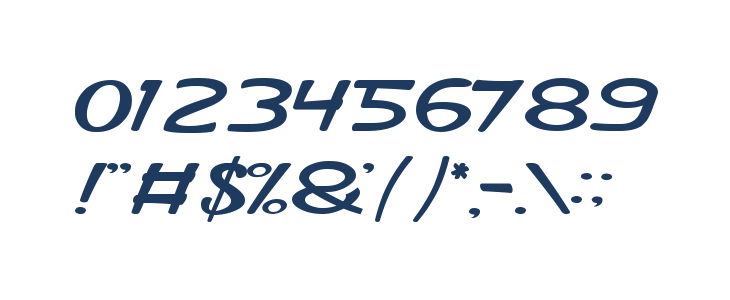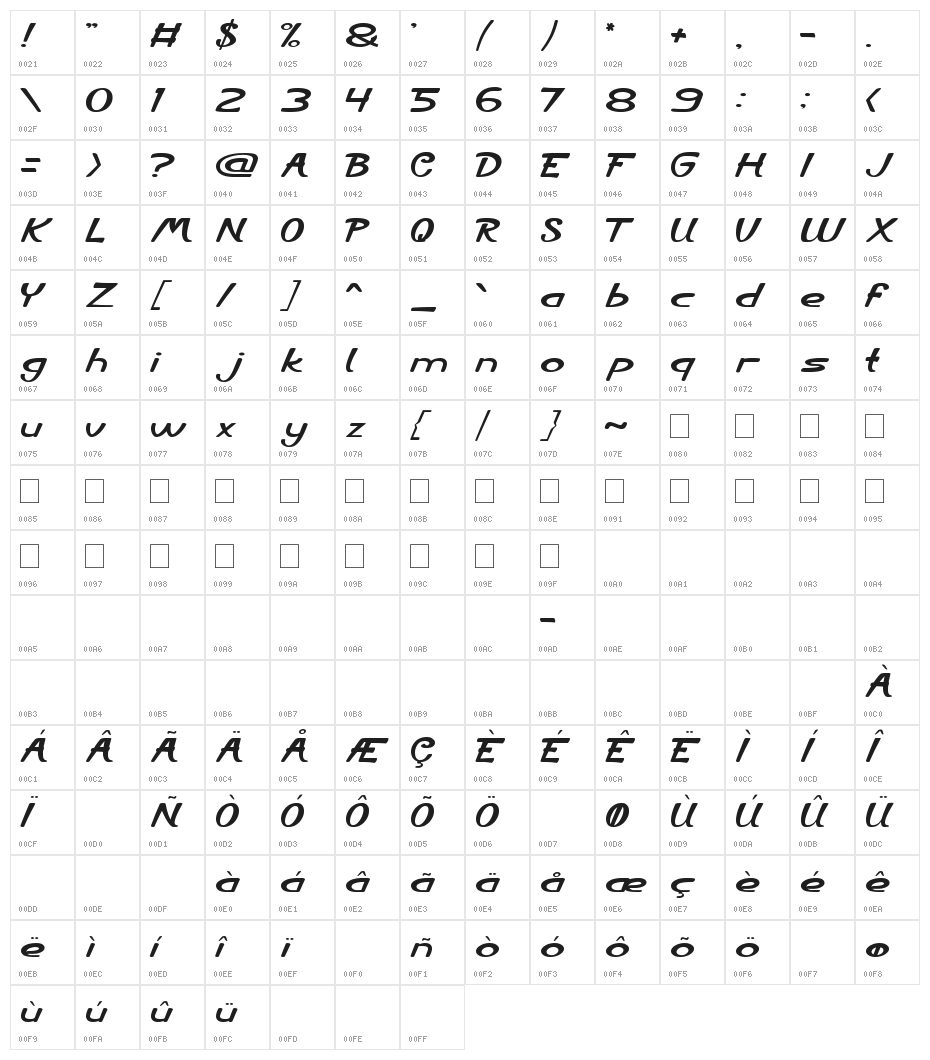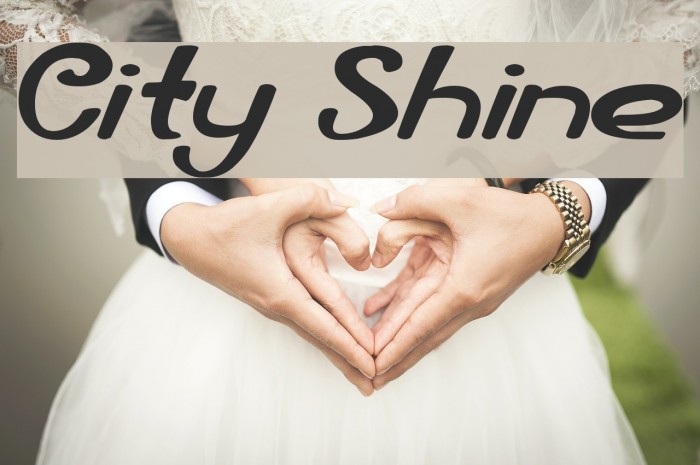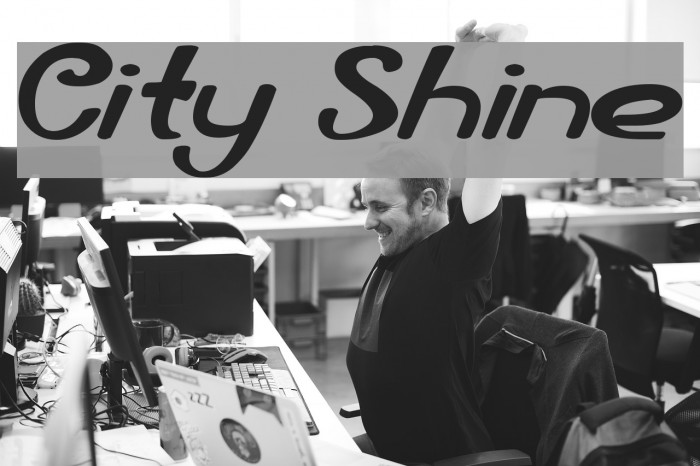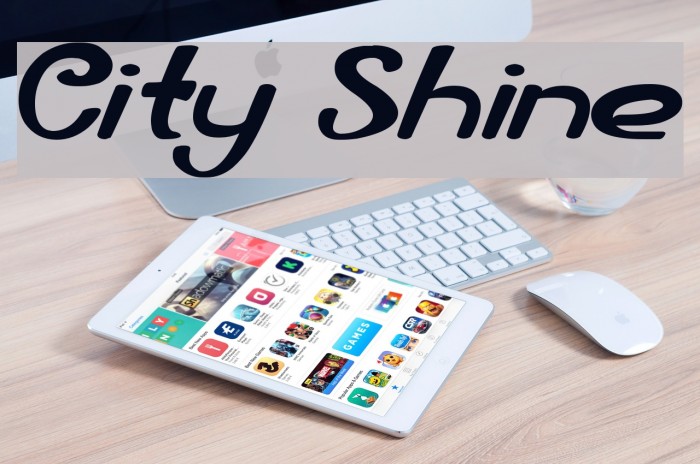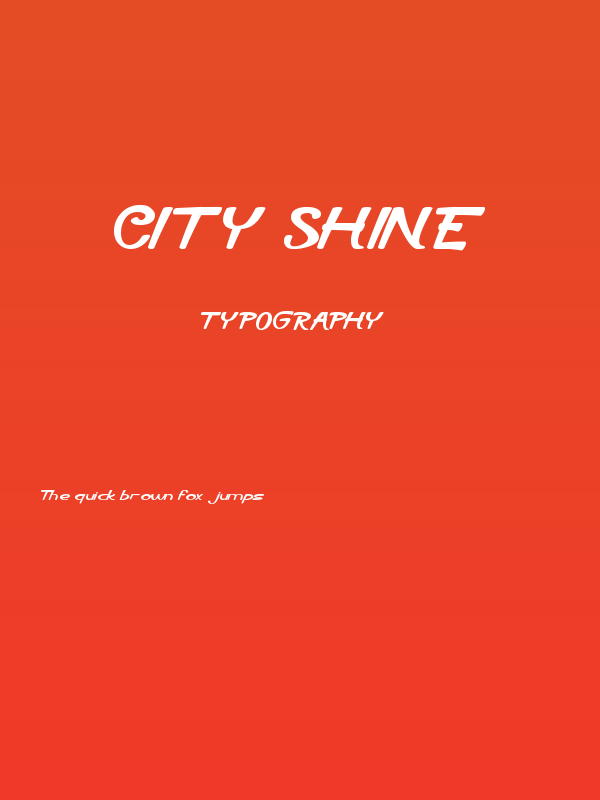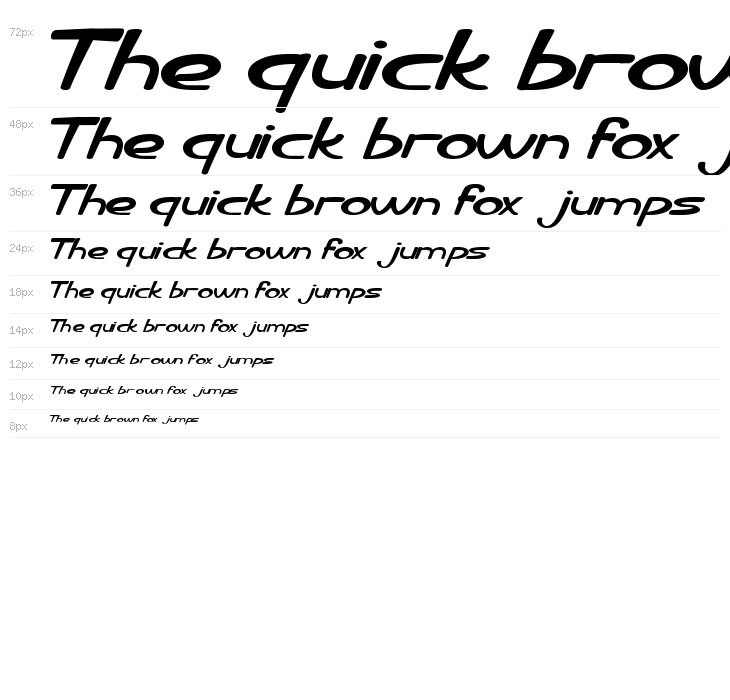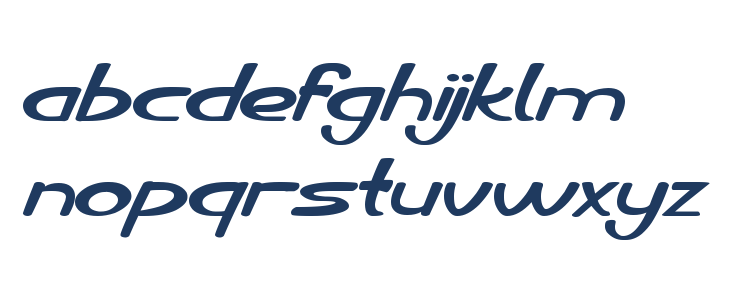
City Shine Font
City Shine Description
This font features a dynamic and fluid script style, characterized by its smooth, flowing curves and slightly slanted letters. The uppercase letters are bold and prominent, while the lowercase letters maintain a consistent rhythm and balance. Numbers and special characters are designed to complement the overall aesthetic, with a playful yet sophisticated touch. The font's design is versatile, making it suitable for various creative projects that require a personal and artistic flair.
CITY-SHINE UPPERCASE
CITY-SHINE LOWERCASE
CITY-SHINE OTHER CHARS
| Proposed Projects | Ideal for branding, invitations, greeting cards, and creative design projects that require a personal touch. |